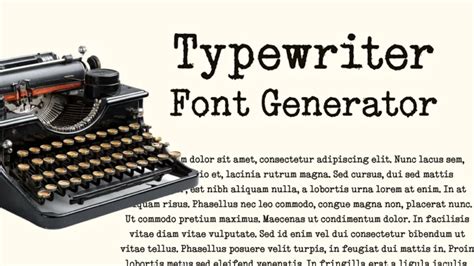
Typewriter Font Generator. Like monospace, fullwidth also uses consistent letter spacing. Web typewriter font generator tool helps to style your text and you can share it on social media.
Web here are some other text generators for fonts similar to our typewriter text generator. Web typewriter font generator tool helps to style your text and you can share it on social media. The most notable typewriter fonts for microsoft word are courier new and lucida console. Web typewriter fonts often take on a grungy and classic look and are used to create digital art. Web imitate older times in your texts with our typewriter fonts for sober and clear works. Courier is probably the best known and at the same time the most overused. Ready to personalize and share in. Type the text and generate typewriter fonts. Like monospace, fullwidth also uses consistent letter spacing.
Courier is probably the best known and at the same time the most overused. Ready to personalize and share in. Web typewriter font generator tool helps to style your text and you can share it on social media. Web typewriter fonts often take on a grungy and classic look and are used to create digital art. Type the text and generate typewriter fonts. Web imitate older times in your texts with our typewriter fonts for sober and clear works. The most notable typewriter fonts for microsoft word are courier new and lucida console. Courier is probably the best known and at the same time the most overused. Web here are some other text generators for fonts similar to our typewriter text generator. Like monospace, fullwidth also uses consistent letter spacing.